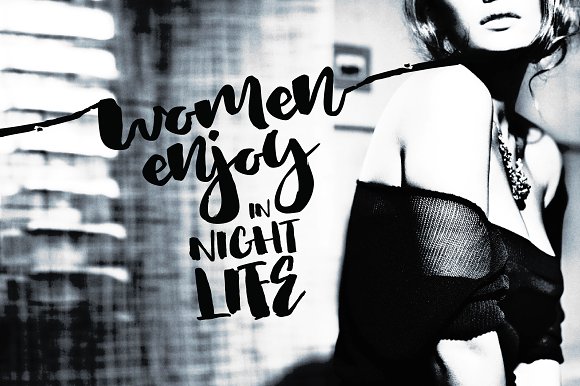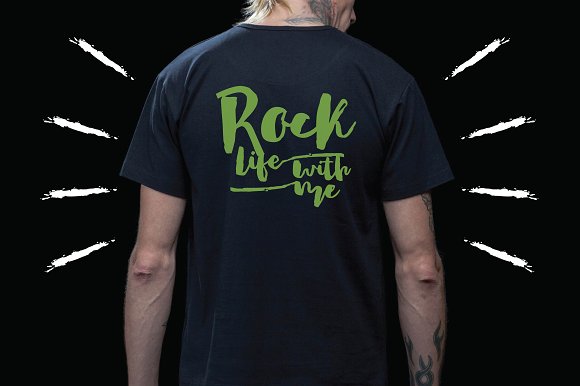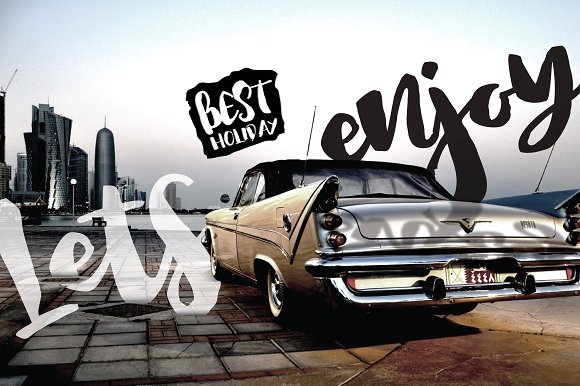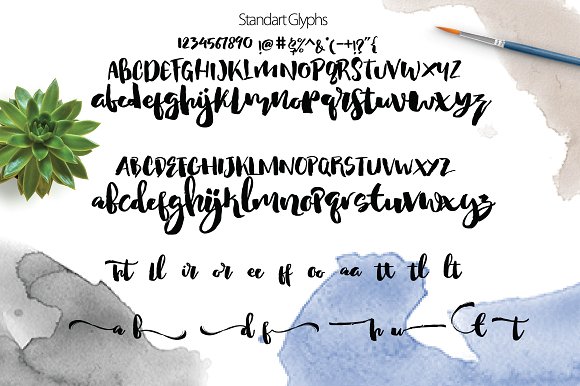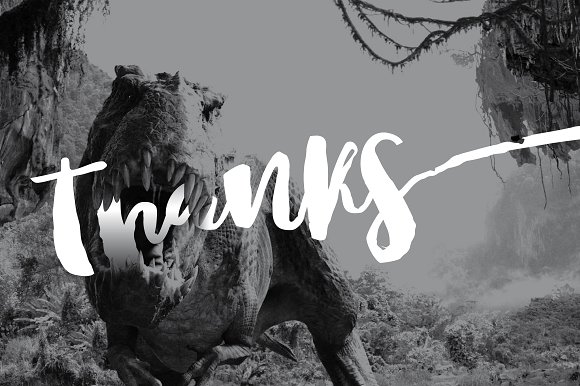
Introduction to Nightgirls Font
Have you ever found yourself scribbling down ideas in a late-night coffee shop, surrounded by the hum of creativity? That’s where the magic happens, and that’s where the Nightgirls Font comes in. This beautiful handwritten script is the perfect companion for your next creative project, from marketing campaigns to craft projects that require a personal touch.
As designers, we’re always on the lookout for high-quality fonts that can elevate our designs and leave a lasting impression. The Nightgirls Font is a valuable addition to any design resource, offering a professional yet approachable look that’s easy to read and works well in a variety of contexts. With a free download available, you can start incorporating this stunning font into your next project today – perfect for designs that require a transparent background or a touch of whimsy.
- Unique, hand-drawn design for a creative project that stands out from the crowd
- Designed with a modern, edgy aesthetic, ideal for projects that require a bold, eye-catching font
Honest Review: Nightgirls Font
I recently stumbled upon the Nightgirls Font, and I must say it’s been a game-changer for my creative projects. This font is perfect for designers looking for a high-quality, free download that can elevate their designs.
What works well: ✨ The font’s unique, vintage-inspired design makes it perfect for projects that require a touch of nostalgia. The transparent background allows for seamless integration with other design elements. The font is also highly versatile, making it suitable for a wide range of creative projects.
- Unique, vintage-inspired design
However, there are some limitations to consider: ⚠️ The font may not be suitable for projects that require a modern, sleek design aesthetic. Additionally, the font’s uniqueness may make it difficult to pair with other fonts.
Overall, I’m thoroughly impressed with the Nightgirls Font. Its unique design and high-quality features make it a valuable addition to any designer’s toolkit. If you’re looking for a font that can add a touch of personality to your creative projects, I highly recommend giving the Nightgirls Font a try.
The Nightgirls Font is perfect for a variety of design projects, including social media graphics, posters, and business cards. Its high-quality design and transparent background make it a versatile design resource that can be used in a range of creative contexts.